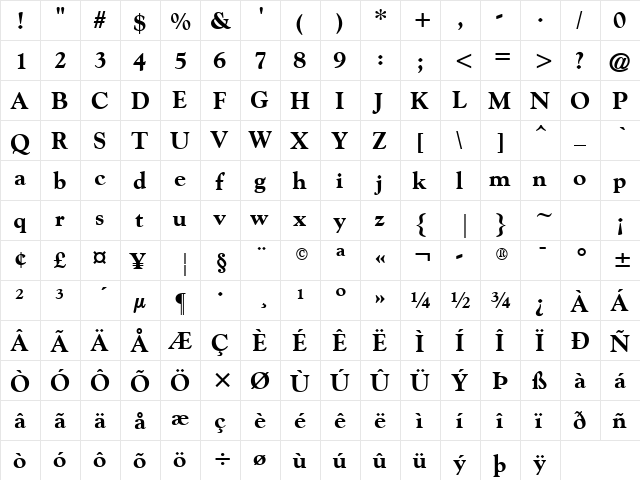
Goudy Extra Bold CG ATT Regular
Design Context for Goudy Extra Bold CG ATT Typeface
Goudy Extra Bold CG ATT offers clean, dependable letterforms without strong stylistic allegiance, making it a practical choice for designers who need flexibility. The heavy weight commands attention and anchors typographic hierarchies.